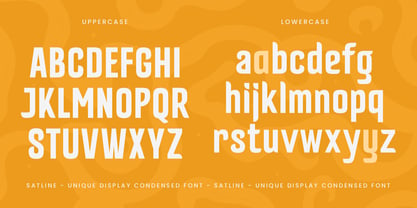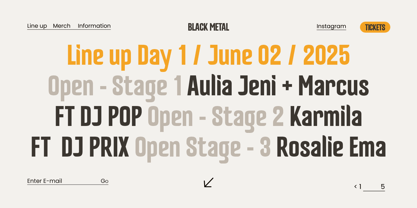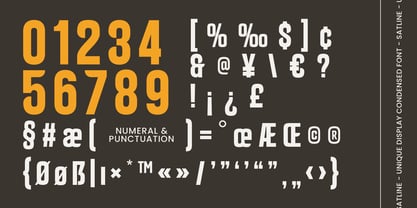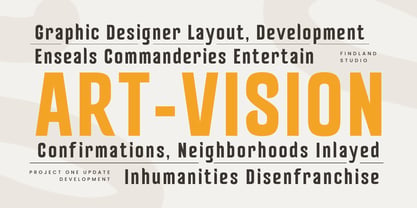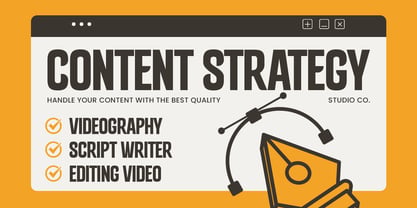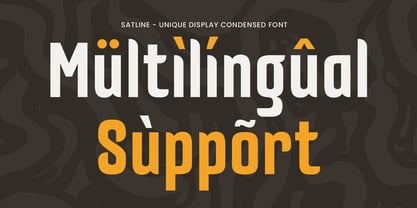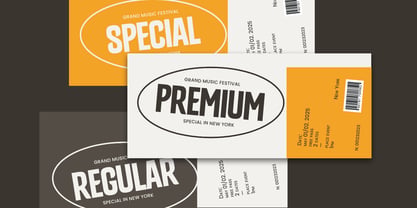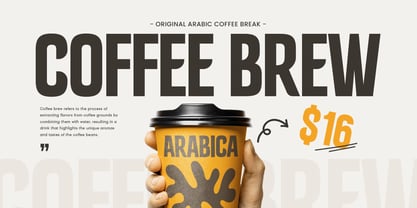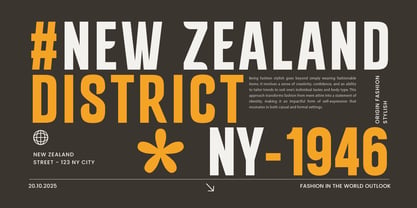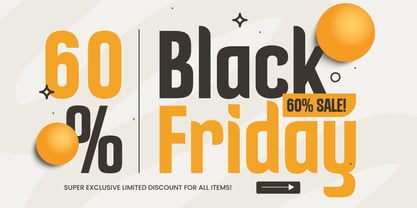
SATLINE is a unique display condensed font designed to make your headlines and branding stand out with bold confidence and refined precision. With its narrow width and tall structure, it creates strong visual impact while mntning modern elegance and legibility.
Perfect for logos, posters, editorial titles, packaging, and social media graphics, SATLINE brings sophistication to every design. Its condensed form allows more text to fit in limited spaces, making it ideal for eye-catching compositions and modern layouts.
Crafted for designers who value style and balance, SATLINE combines sleek geometry with a creative edge, resulting in a distinctive font that’s versatile across digital and print applications.
Font Features:
Stylish condensed letterforms with modern proportions
Perfect for logos, posters, packaging, and branding
Strong vertical design ideal for headlines and tight layouts
Great readability for both print and screen use
Uppercase, lowercase, numerals, and punctuation included
OpenType features for advanced typographic control
Multilingual Support:
Supports: Afrikaans, Albanian, Asu, Basque, Bemba, Bena, Breton, Chiga, Cornish, Dutch, English, Estonian, Filipino, Finnish, Friulian, Galician, German, Gusii, Indonesian, Irish, Italian, Kabuverdianu, Kalenjin, Kinyarwanda, Luo, Luxembourgish, Luyia, Machame, Makhuwa-Meetto, Makonde, Malagasy, Manx, Morisyen, North Ndebele, Nyankole, Oromo, Portuguese, Quechua, Romansh, Rombo, Rundi, Rwa, Samburu, Sango, Sangu, Scottish Gaelic, Sena, Shambala, Shona, Soga, Somali, Spanish, Swahili, Swedish, Swiss, and more.
Make your typography stand out with SATLINE – the ultimate unique display condensed font for bold, modern, and elegant designs. ✨